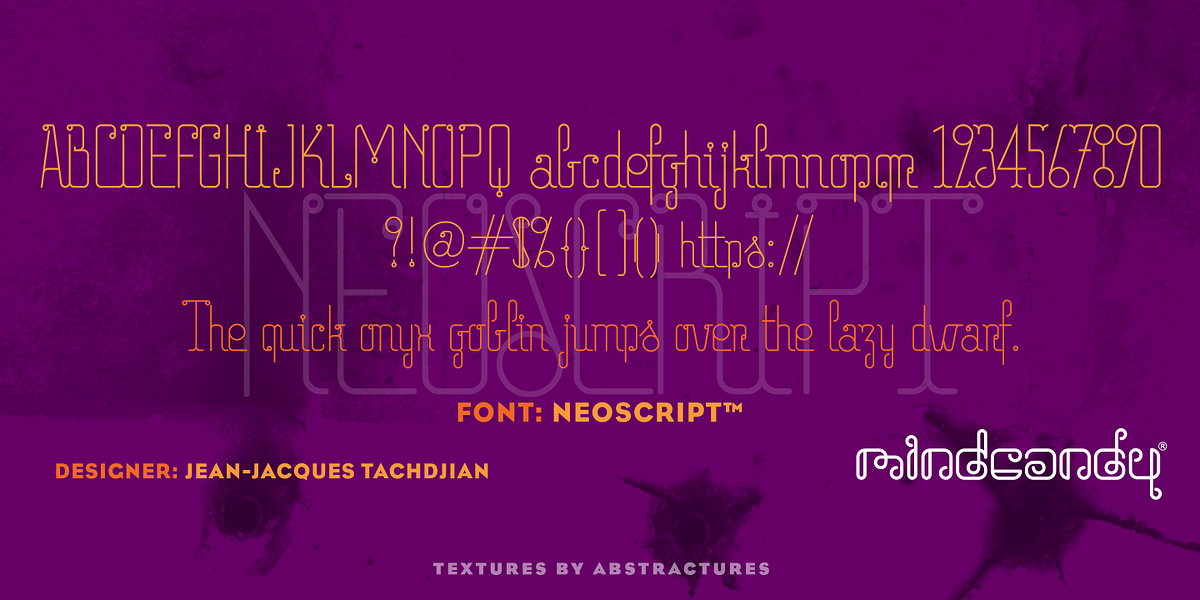
Neoscript™
This casual script font features a monolinear design, making it suitable for playful and whimsical applications. It's well-suited for branding, display purposes, and any project needing a touch of lightheartedness.